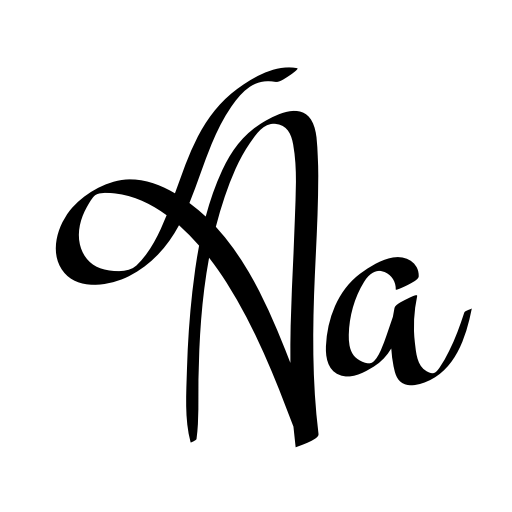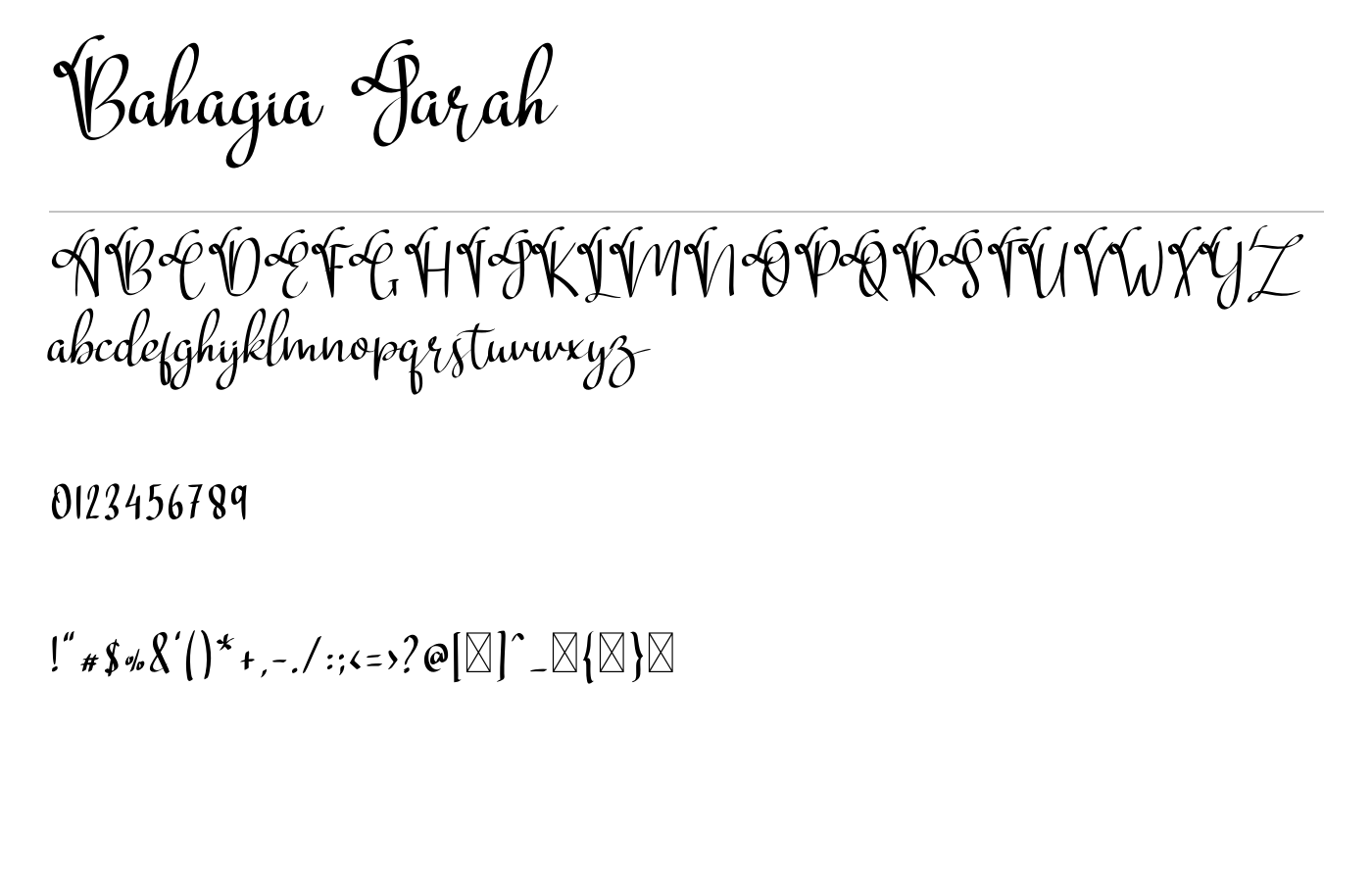
Bahagia Jarah is an elegant script font characterized by its delicate, flowing strokes and decorative letterforms that blend cursive charm with refined flourish. Its slender weight and high contrast between thick and thin lines give it a graceful, sophisticated feel, making it perfect for invitations, branding, and projects that seek a romantic or artistic touch. This font shines in headline or display use where its unique style can stand out beautifully.
Bahagia Jarah Font
About Bahagia Jarah Font